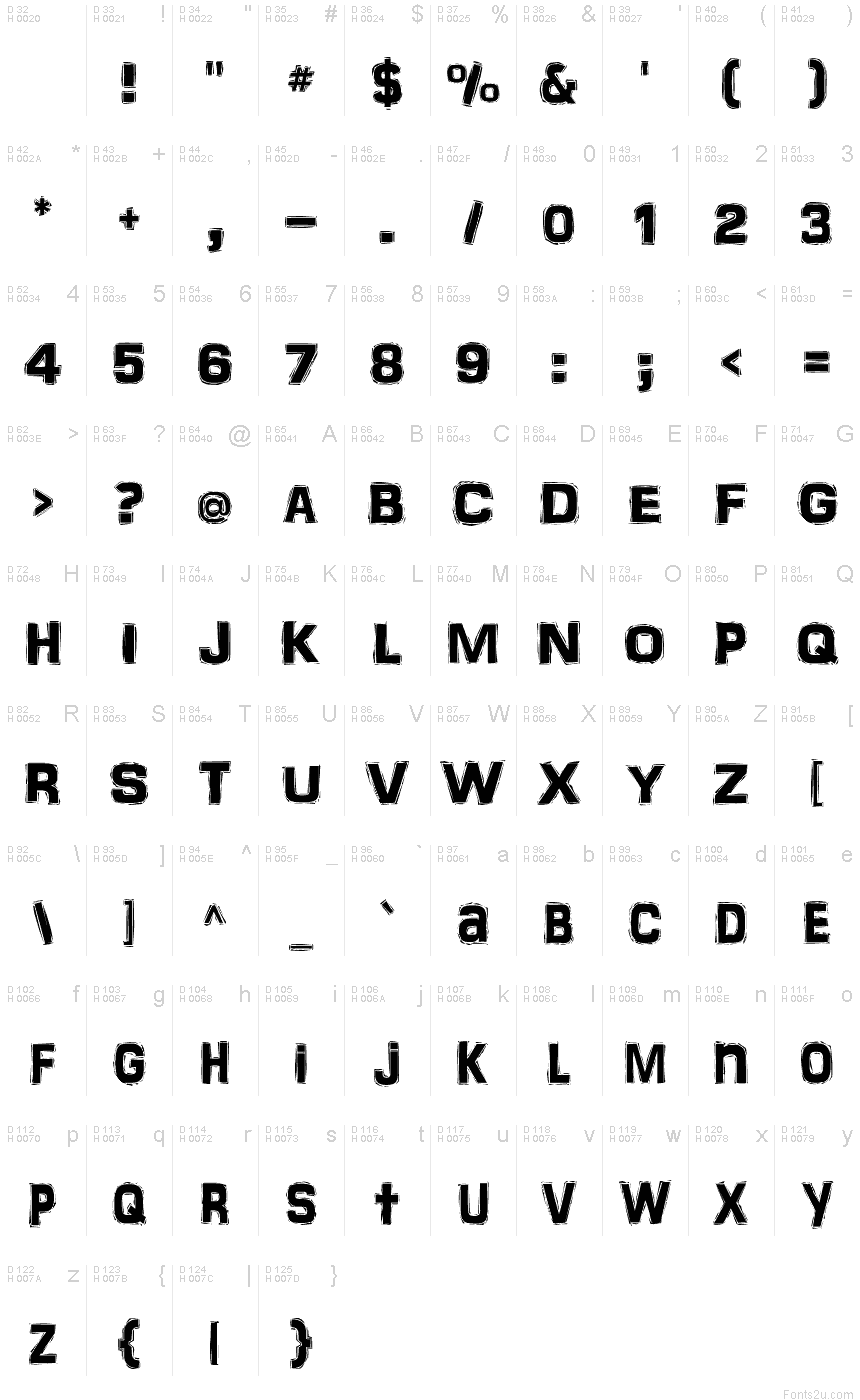
FrankenTOHO
FrankenTOHO font by B.O. Nelson is a free decorative display typeface that looks like it’s been yanked from an old monster poster and dragged through a thunderstorm. Thick, blocky letters are hacked at the edges, with ragged white scratches and gouges that feel almost wet with ink, giving each word a jittery, electric presence. It reads loud and immediate, like a scream across a rain‑streaked marquee.
Using FrankenTOHO, your titles snap to life on horror movie posters, Halloween flyers, haunted house branding, spooky party invitations, video thumbnails, and campy zine covers. The uneven texture keeps big headlines feeling wild and hand‑wrought, especially in oversized, all‑caps treatments. Pair this free font with a simple condensed sans serif for body copy so the rough, scratched forms stay center stage.